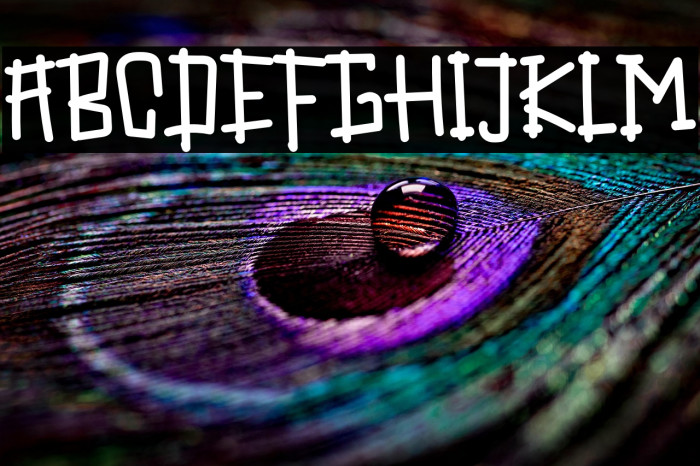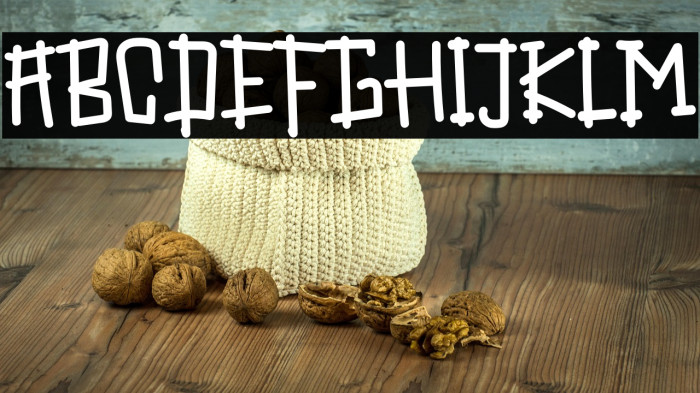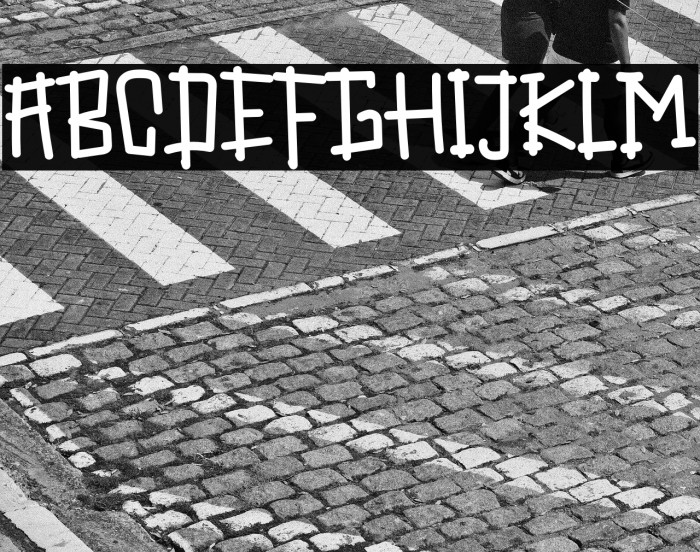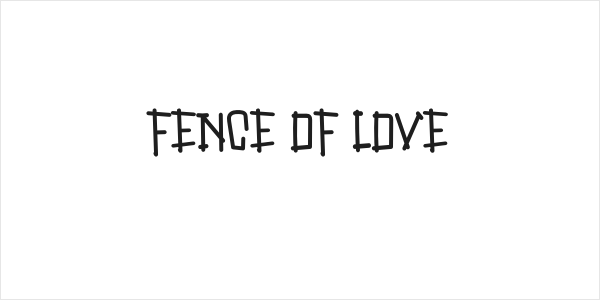
Fence Of Love Font
Fence Of Love Description
This font features a playful and quirky design, characterized by its bold and slightly irregular strokes. The letters are constructed with a hand-drawn aesthetic, giving them a unique and informal appearance. Each character is distinct, with a consistent thickness that adds to the font's boldness. The uppercase and lowercase letters maintain a uniform style, while the numerals and special characters complement the overall design. The font's whimsical nature makes it ideal for projects that require a fun and engaging visual element.
| Proposed Projects | Ideal for children's books, playful branding, greeting cards, and creative posters. |